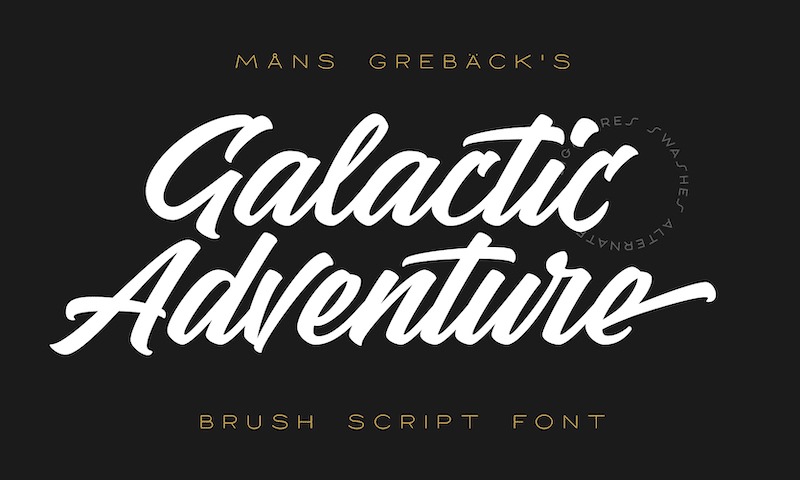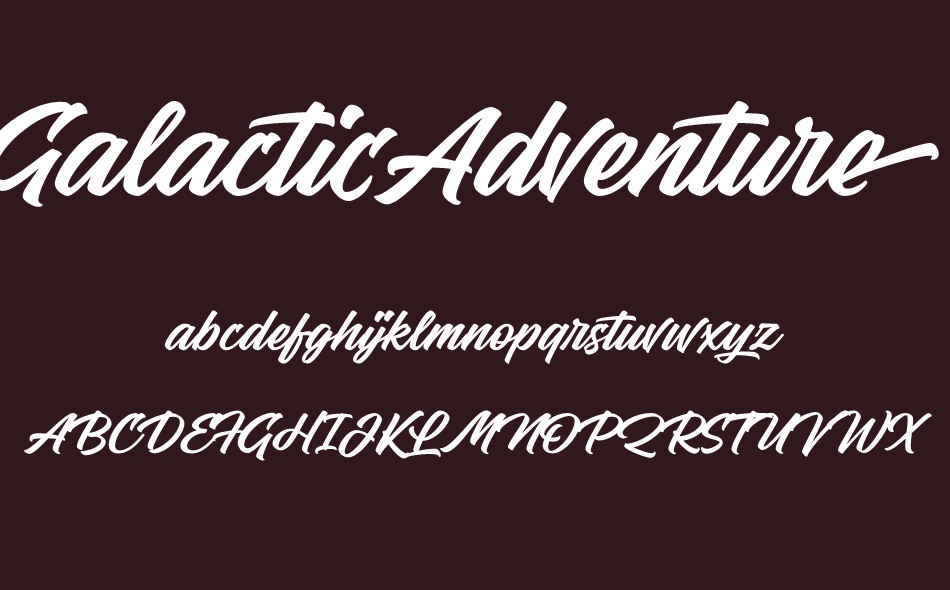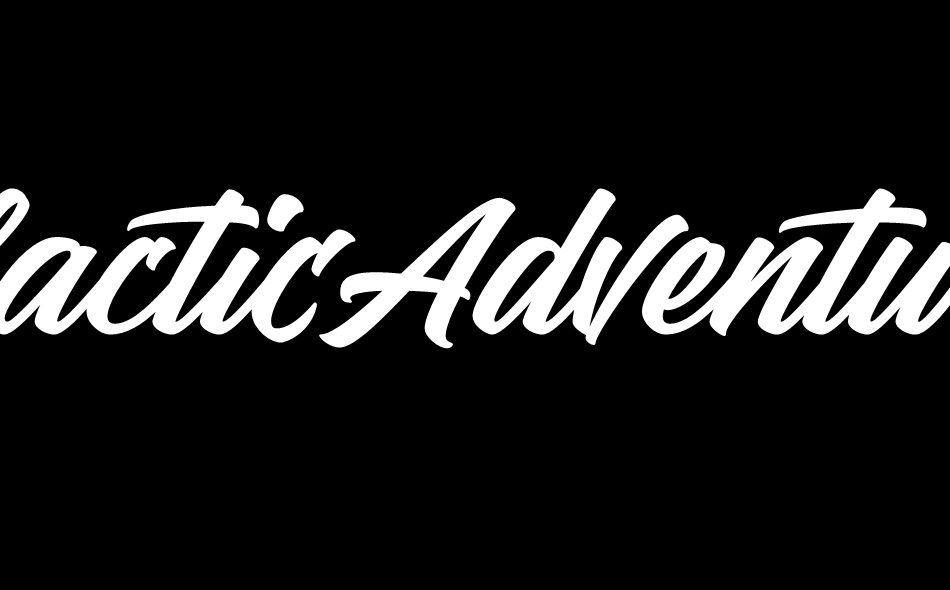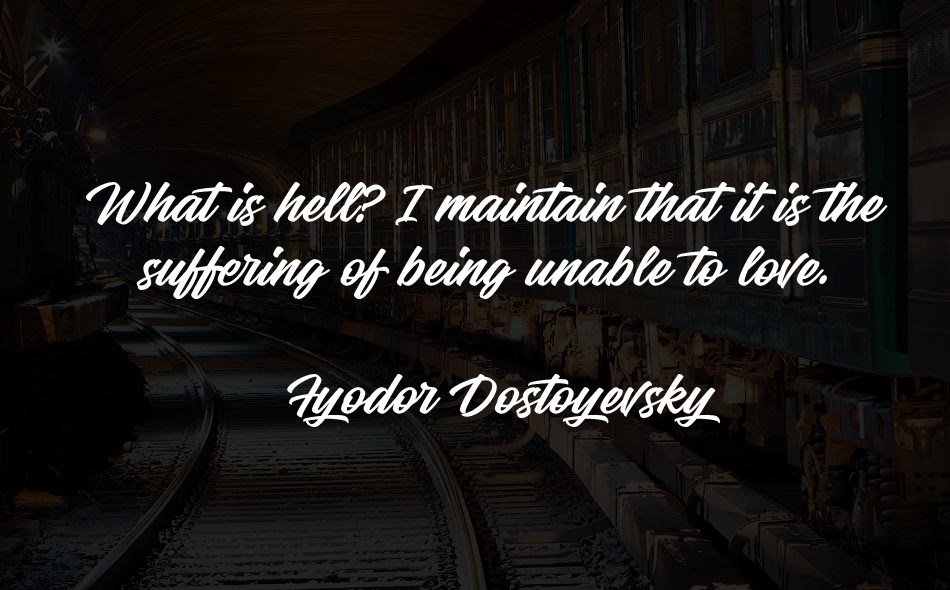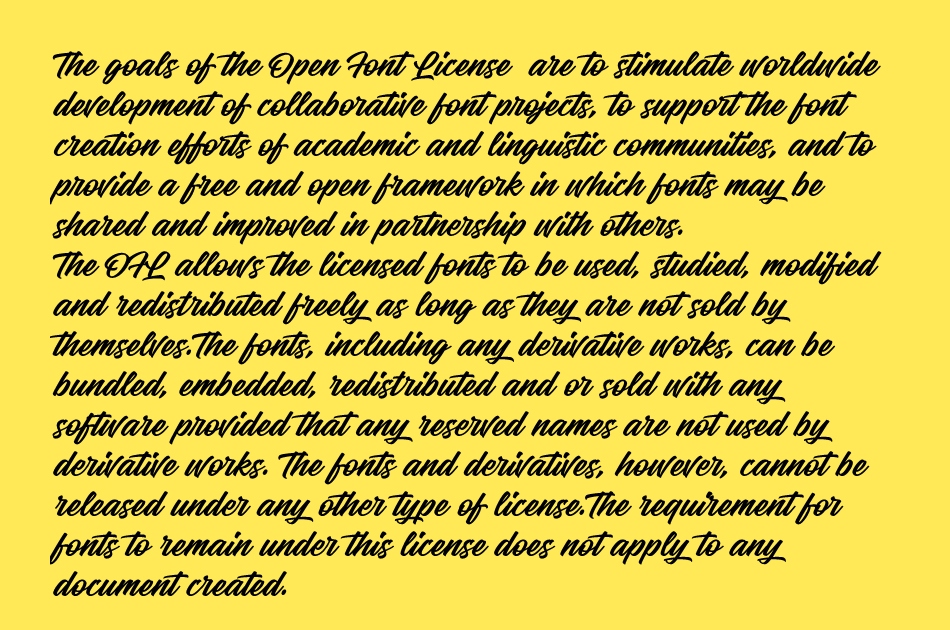
Galactic Adventure font
Galactic Adventure is a calligraphic brush font with a retro twist, inspired by the expressive movement and boldness of vintage advertisements.
Use underscore _ to make a underline.
Example: Co_ol
Use multiple underscores for longer swashes.
Example: Super____human
Galactic Adventure is a calligraphic brush font with a retro twist, inspired by the expressive movement and boldness of vintage advertisements. This font effortlessly combines the heavy, dynamic strokes of brush calligraphy with the cool, adventurous spirit of the past, making it an ideal choice for merchandise, branding, and creative projects that demand a touch of retro charm.
Use underscore _ to make a underline.
Example: Co_ol
Use multiple underscores for longer swashes.
Example: Super____human
The Galactic Adventure font family features three distinct styles to suit your design needs: Regular, Bold, and their respective Italics. These versatile options allow you to capture the essence of the past while adapting to modern aesthetics, providing endless possibilities for your creations.
The font is built with advanced OpenType functionality and has a guaranteed top-notch quality, containing stylistic and contextual alternates, ligatures and more features; all to give you full control and customizability.
It has extensive lingual support, covering all Latin-based languages, from Northern Europe to South Africa, from America to South-East Asia. It contains all characters and symbols you'll ever need, including all punctuation and numbers.